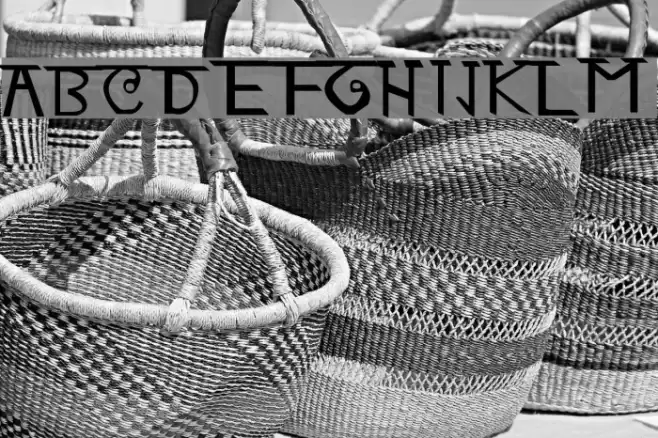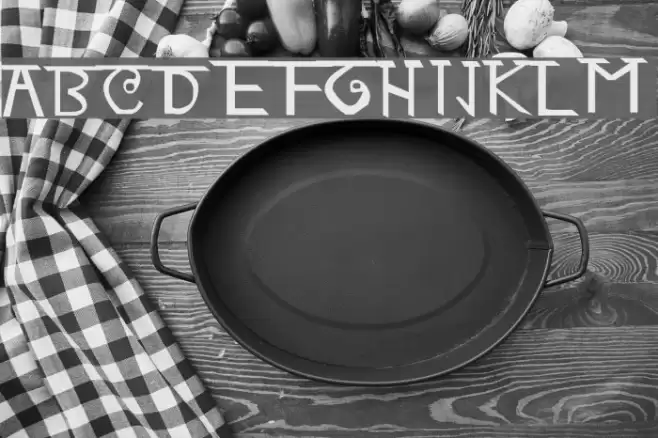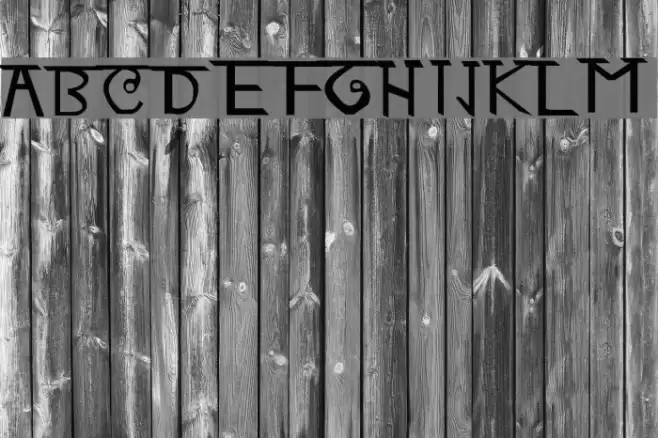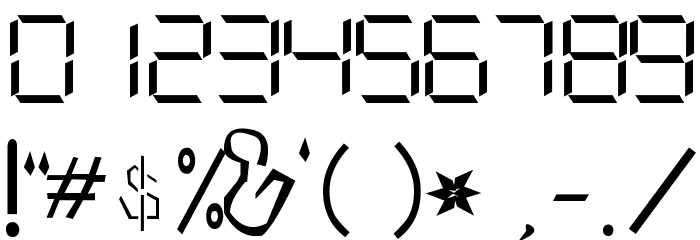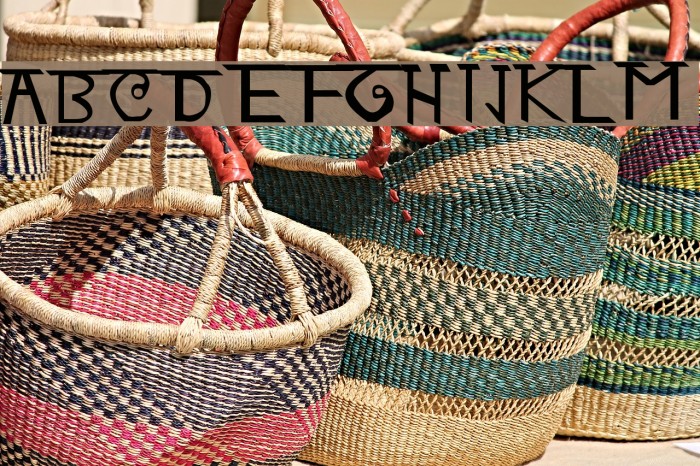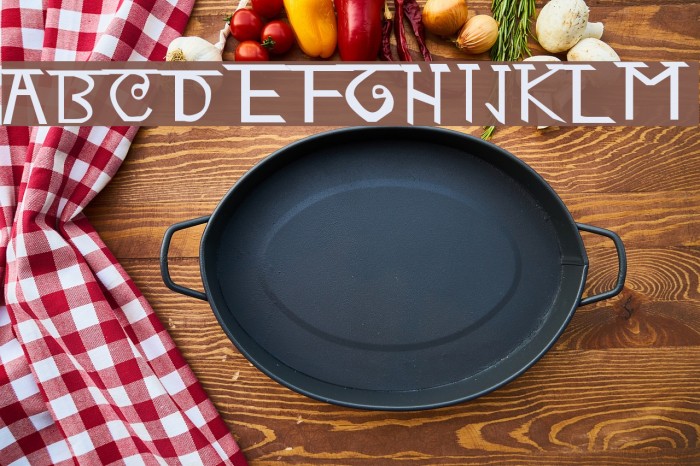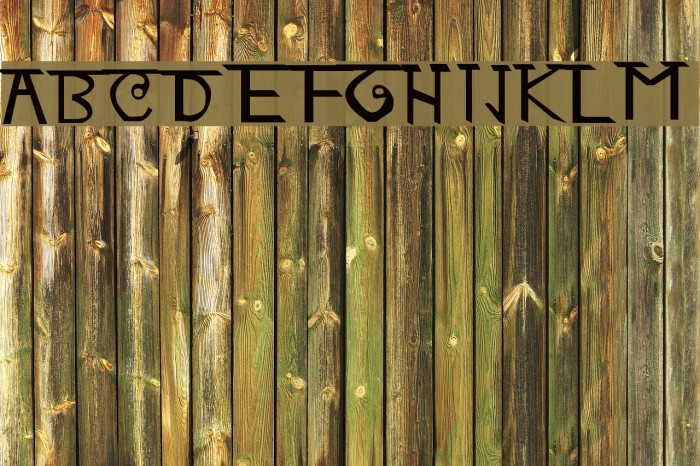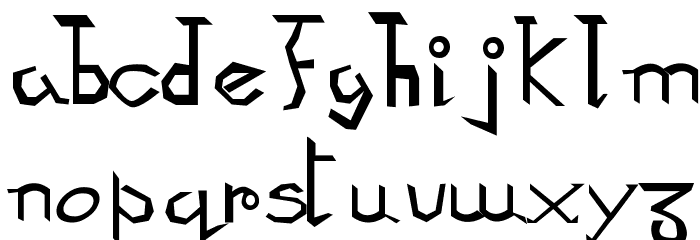
Ani Font
Ani Description
This font exhibits a unique and artistic style, characterized by its angular and geometric shapes. The uppercase letters feature sharp edges and distinct cuts, giving them a modern and edgy appearance. The lowercase letters maintain a similar angular design, with some characters incorporating circular elements for contrast. The numerals are consistent with the overall geometric theme, providing a cohesive look across all characters. Special characters are creatively designed, adding to the font's decorative appeal. This font stands out with its bold and striking presence, making it suitable for eye-catching designs.
A bold, angular, and geometric font with a modern and artistic flair from Uncategorized fonts.